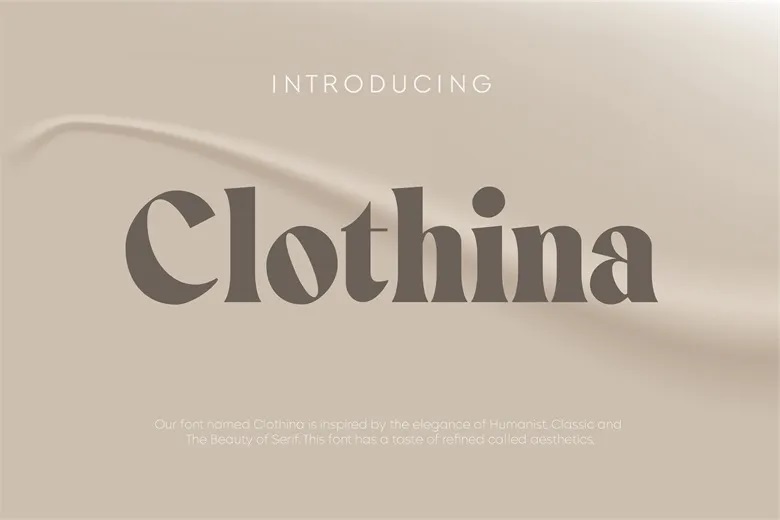
Clothina Font
Clothina is a modern sophisticated and timeless serif font elegant and classic. This font has a taste of refined called aesthetics inspired by humanist, classic and the beauty of serif.
Clothina Serif Font